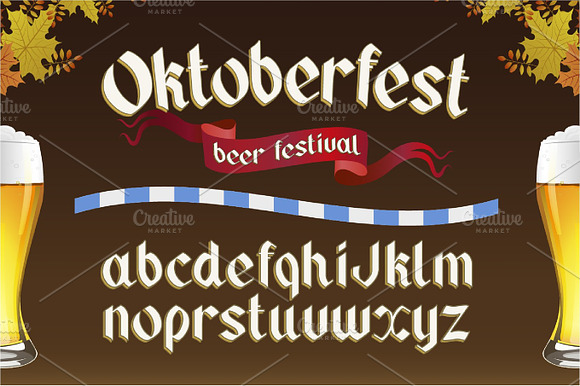
Oktoberfest. OTF gothic font.
Oktoberfest vintage font with beer and autumn leaves on dark background. Octoberfest alphabet. Gothic label style.
Oktoberfest. OTF gothic font. by Fractal fonts & graphics fits naturally into Branding, posters, packaging, typography.